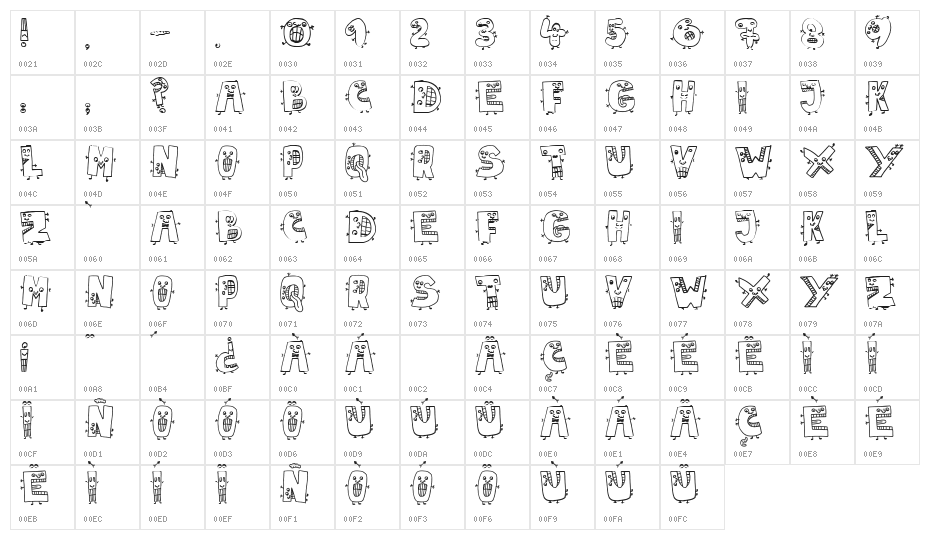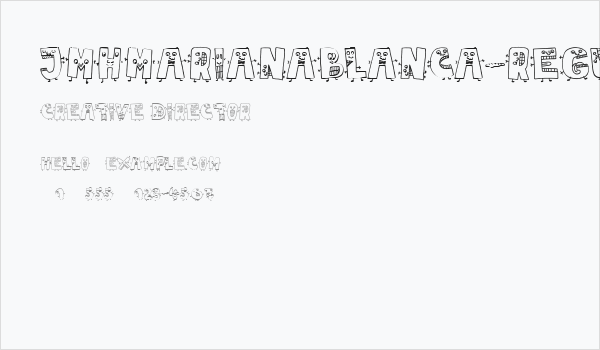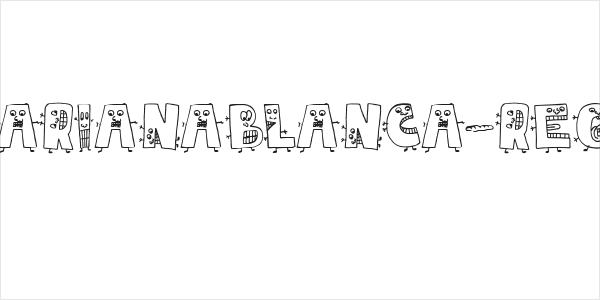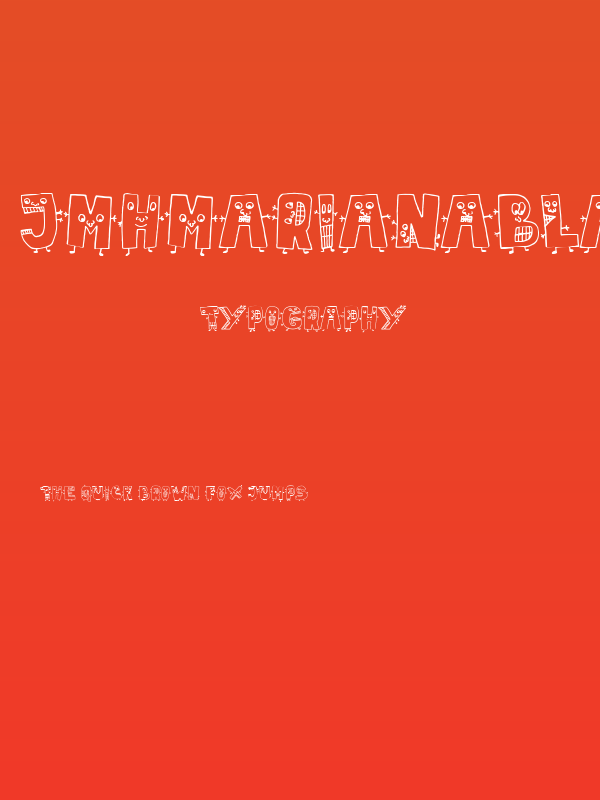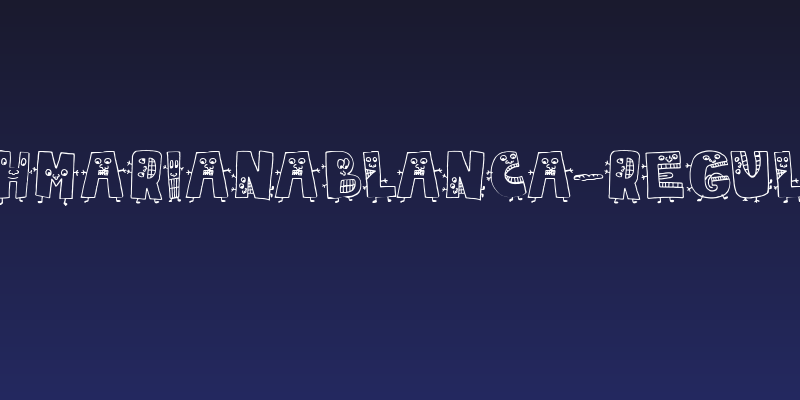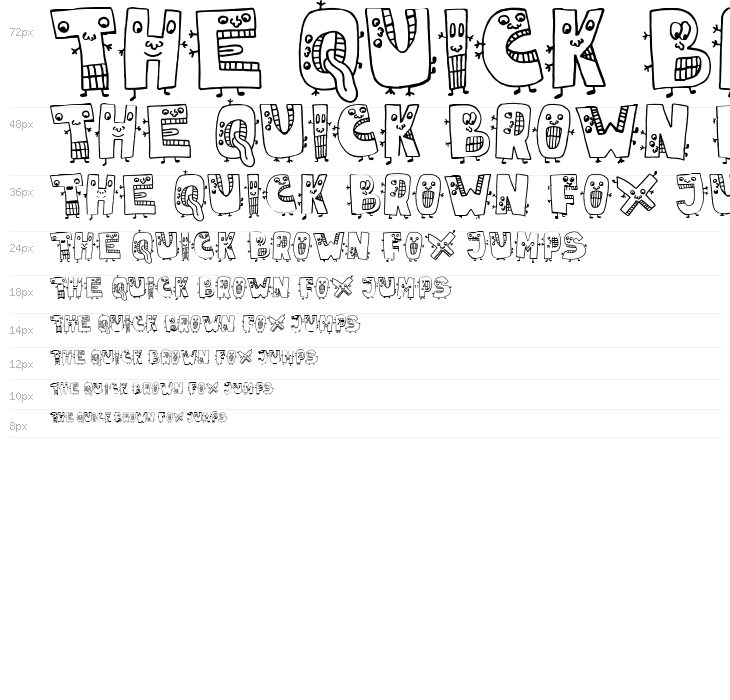
JMHMarianaBlanca-Regular Font
JMHMarianaBlanca-Regular Description
This playful and whimsical font features characters that are creatively designed with quirky, cartoon-like faces and limbs. Each letter and number is uniquely decorated with patterns such as stripes, dots, and grids, adding a lively and humorous touch. The font exudes a hand-drawn, doodle-like quality, making it perfect for projects that require a fun and informal aesthetic. The characters are bold and have a consistent stroke width, ensuring readability despite their decorative elements. The overall style is highly imaginative, with a focus on entertainment and creativity.
Proposed ProjectsIdeal for children's books, comic strips, playful branding, and party invitations.